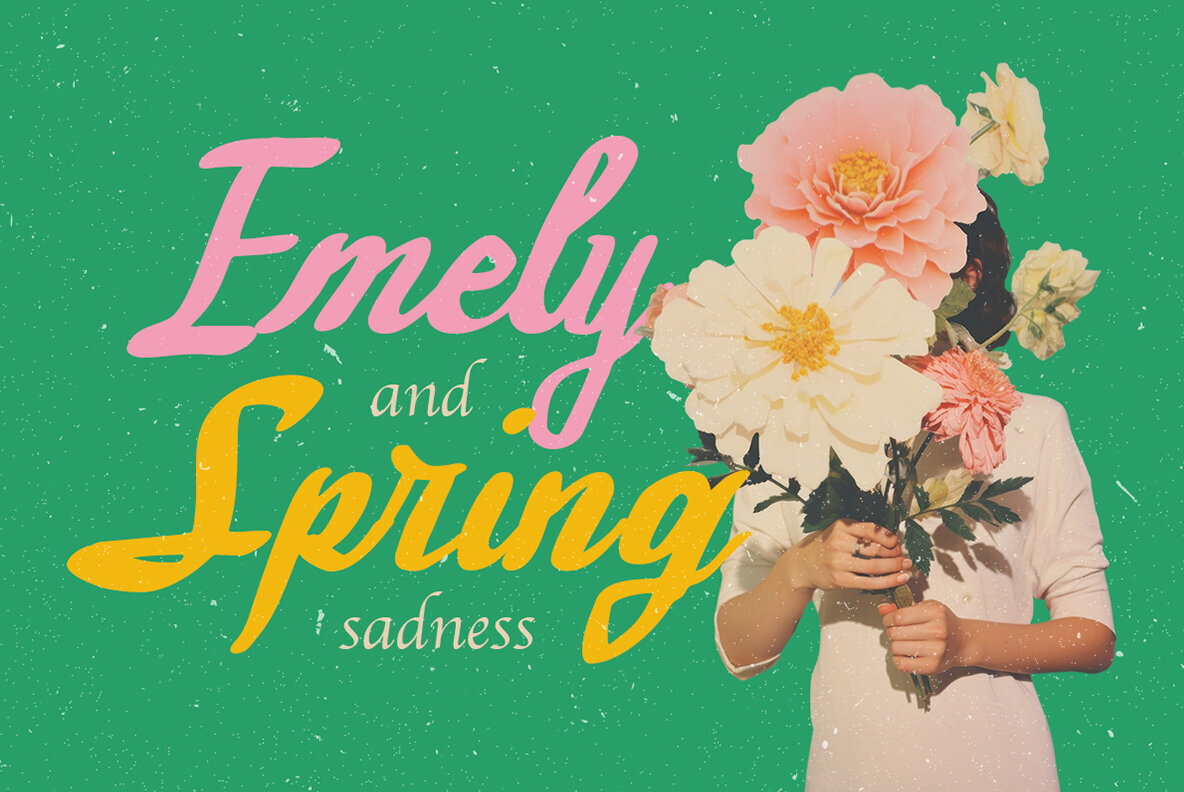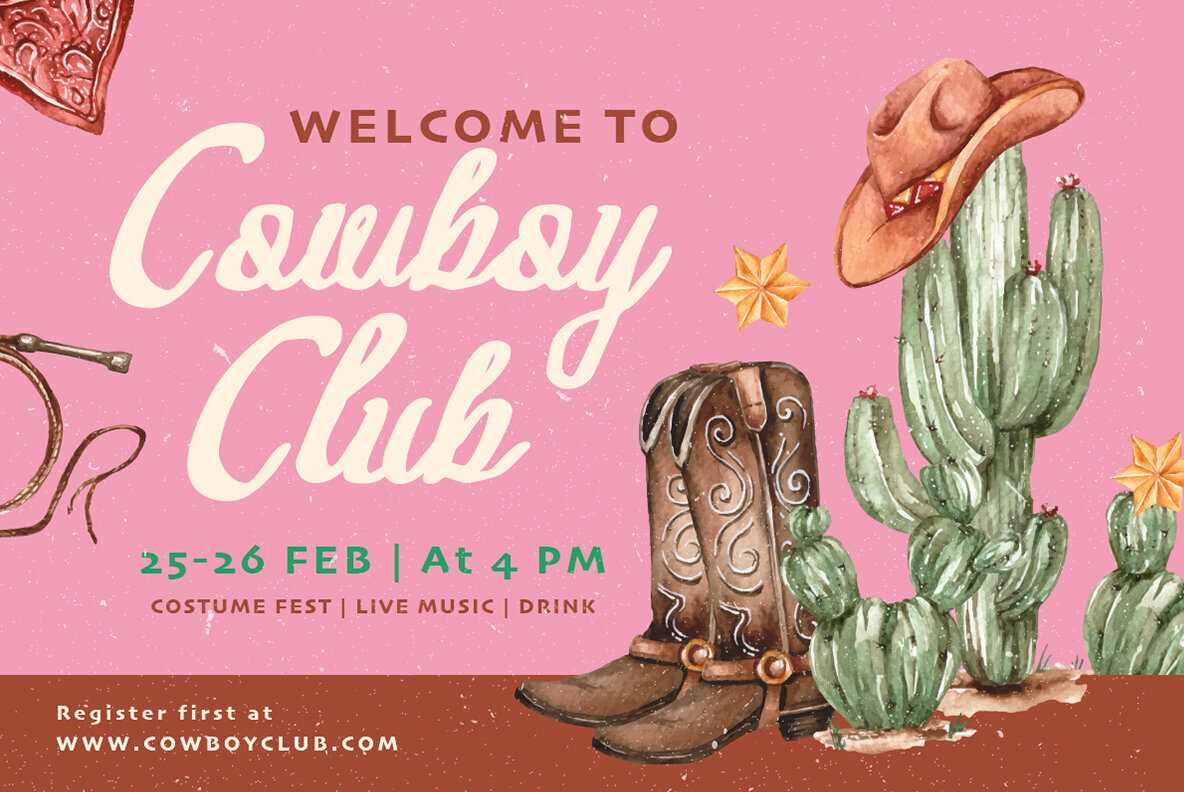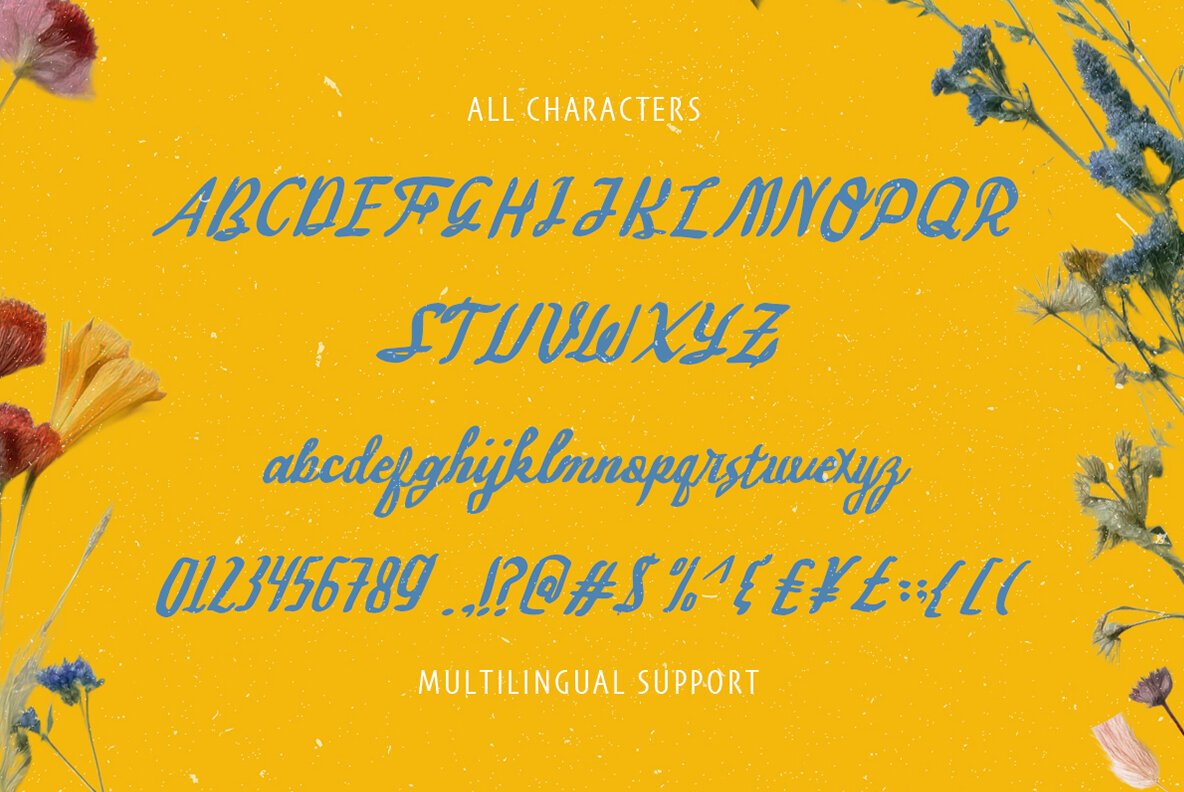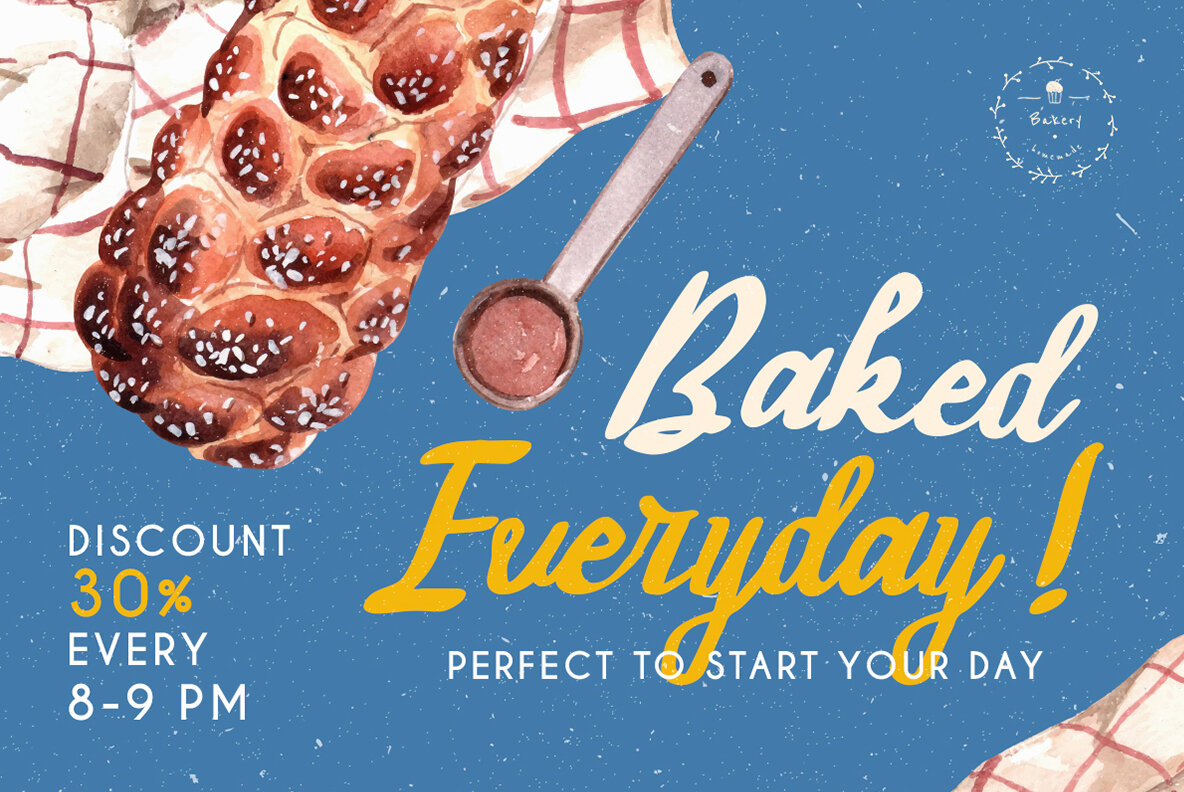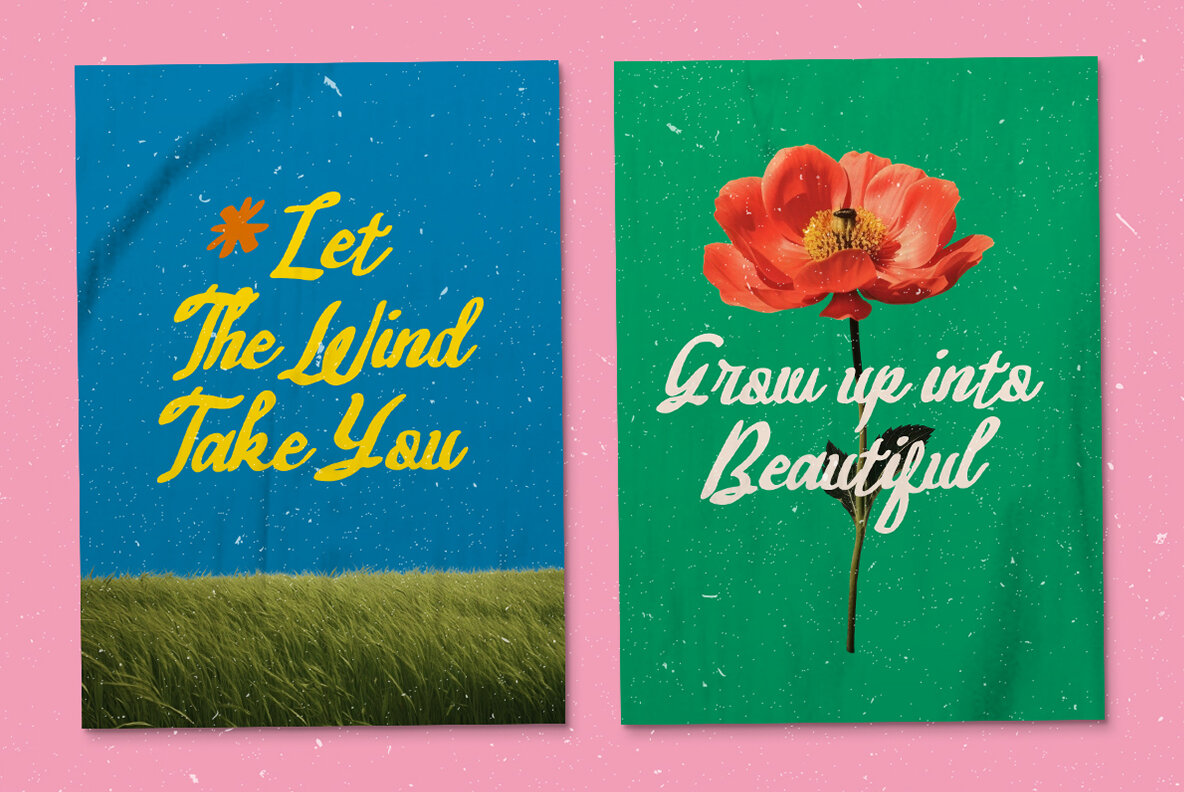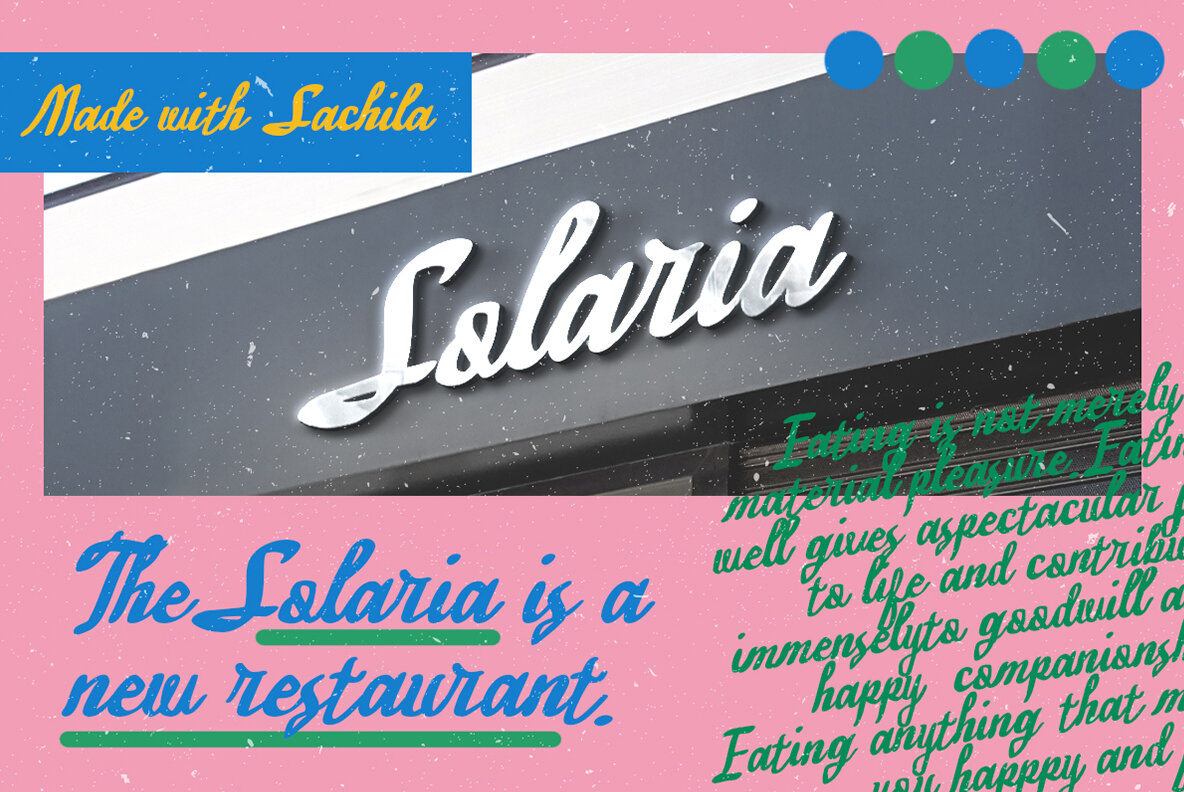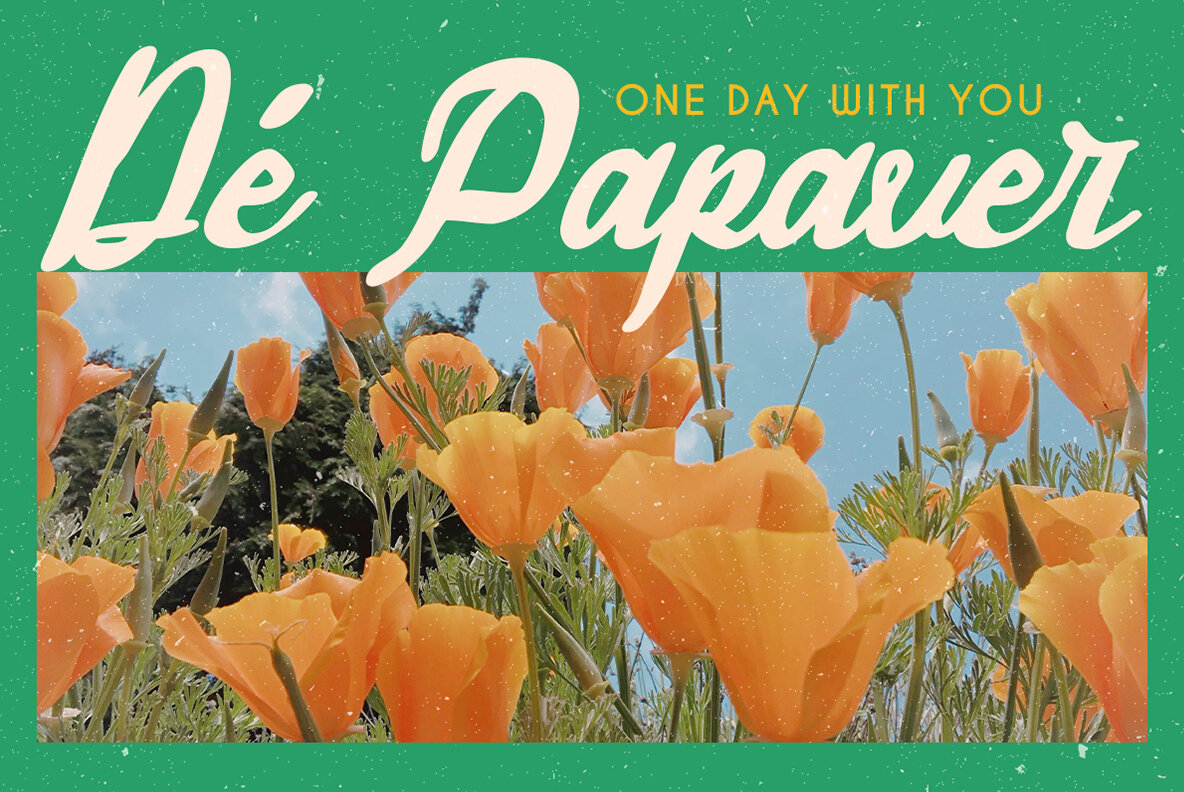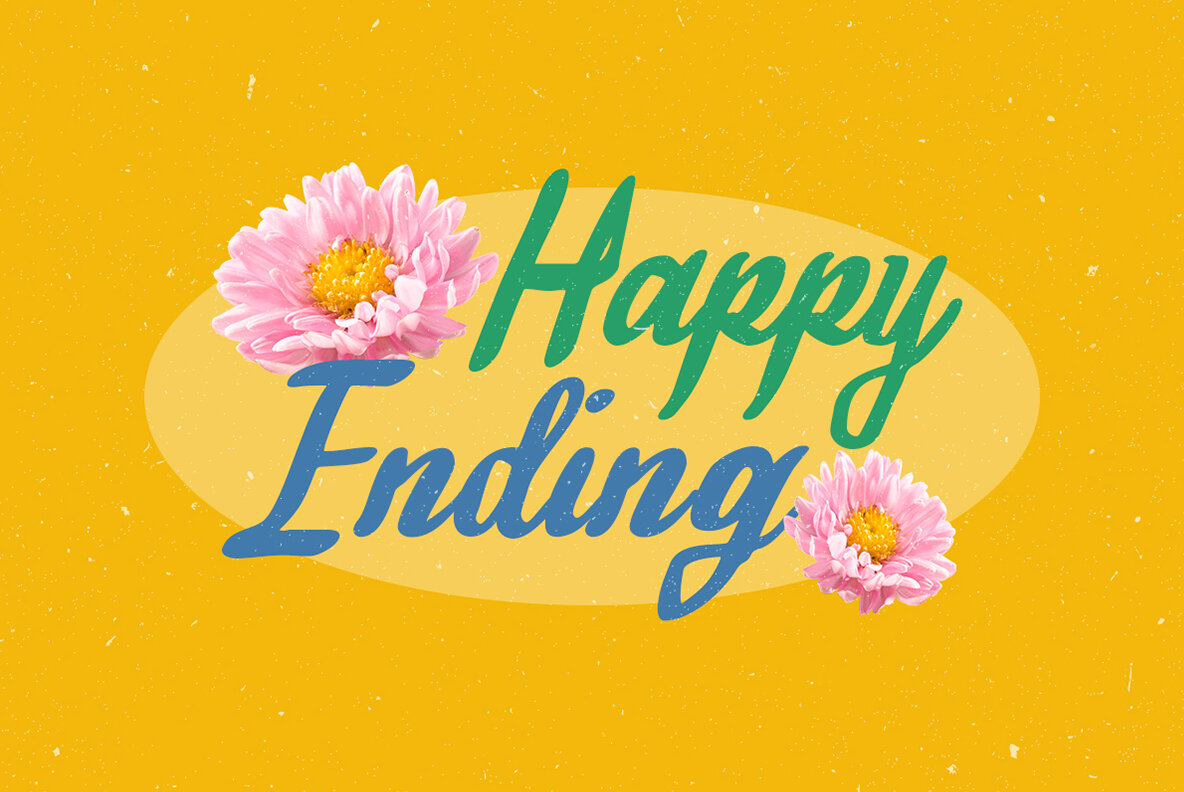
Sachila Font
SL Sachila Regular
Meet Sachila—a sassy, bold script that embodies timeless elegance. Perfect for enhancing your designs, whether it's creating impactful titles, captivating book covers, or a standout logo for your brand.Sachila Script: Bold Elegance in Typography